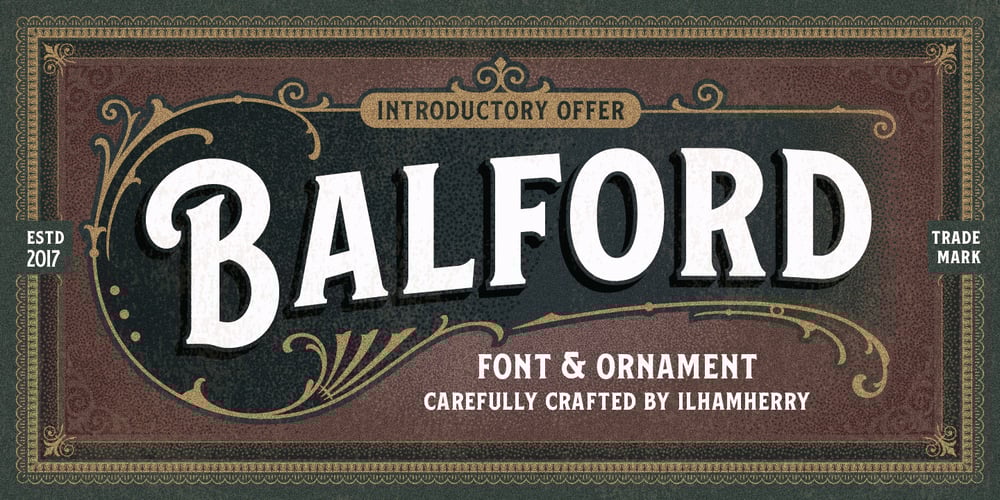
Balford
Balford font
Balford Font Family was designed by Ilham Herry and published by Ilham Herry. Balford contains 3 styles and family package options. A new vintage font family and ornaments called Balford. Inspired by vintage labels and packages, this collection of styles with shadow of typeface and vintage scrolls, panels, and ornaments makes it possible to combine and create many options. Create label designs, headlines, logotypes, signage, posters, greeting cards, letterheads, t-shirts and much more.